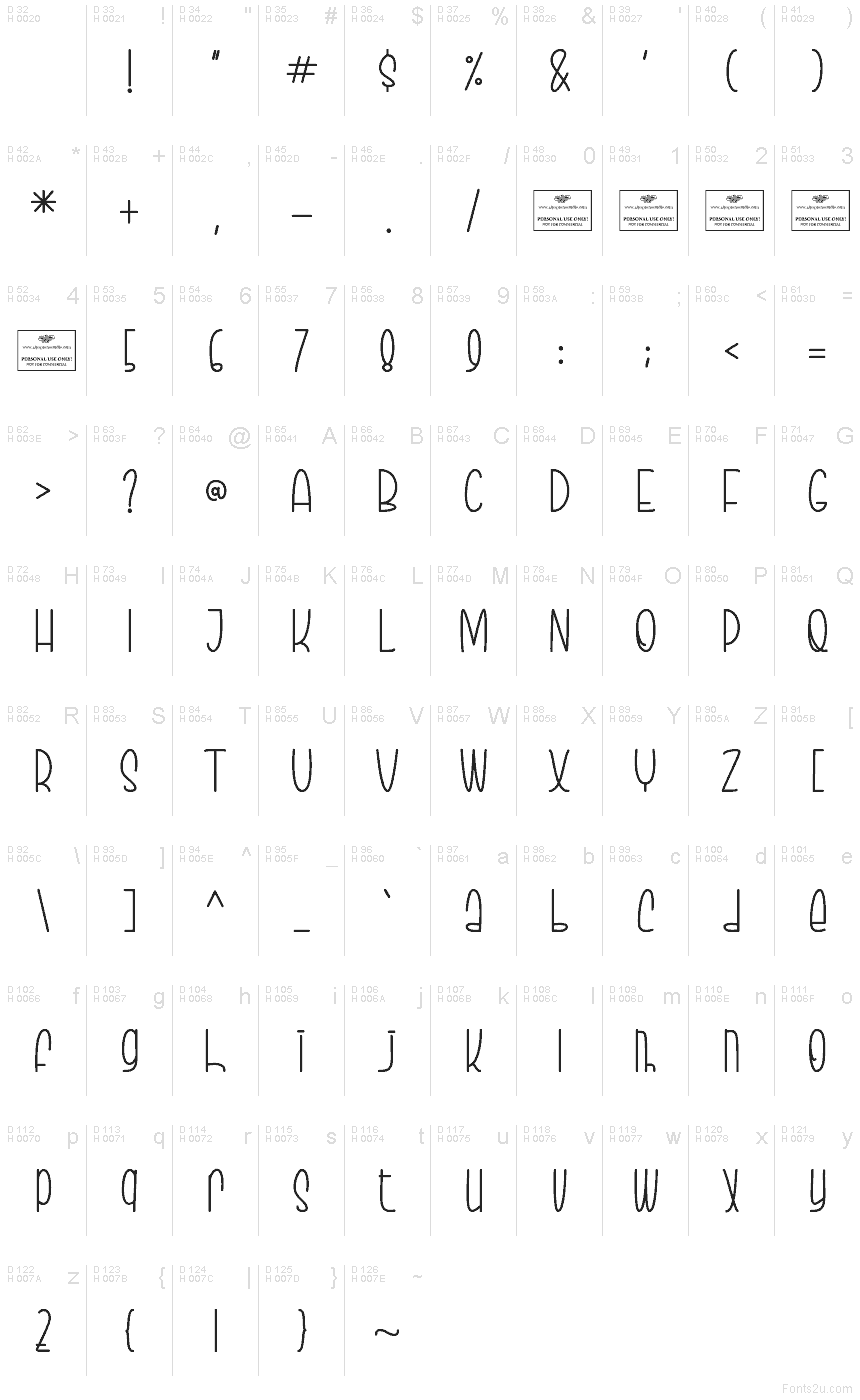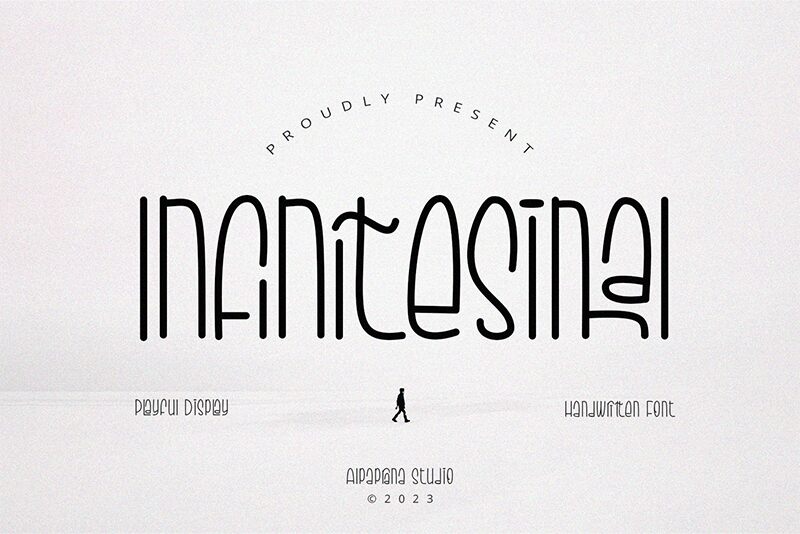
Infinitesimal
Infinitesimal font by Alpaprana Studio is a handwritten condensed font with wonderful rounded letter forms and unique flair. It exudes geometric influences combined with Art Nouveau elements and a modernist touch. Its design features extend across most character sets in this free decorative typeface.
Infinitesimal is appropriate for display use in posters, flyers, websites, magazines, large storefront signs, product packaging, children’s books covers, and more.